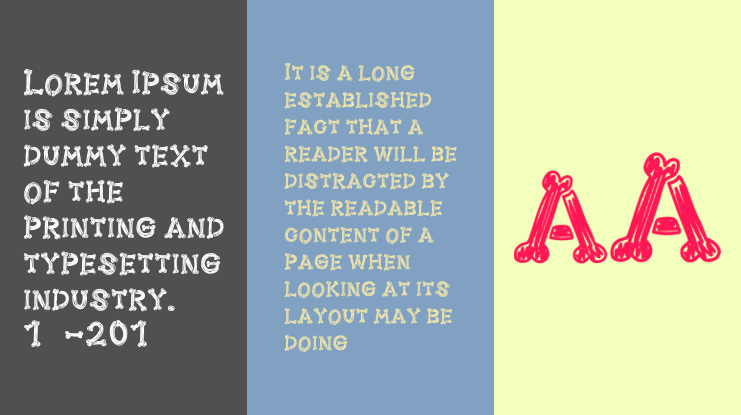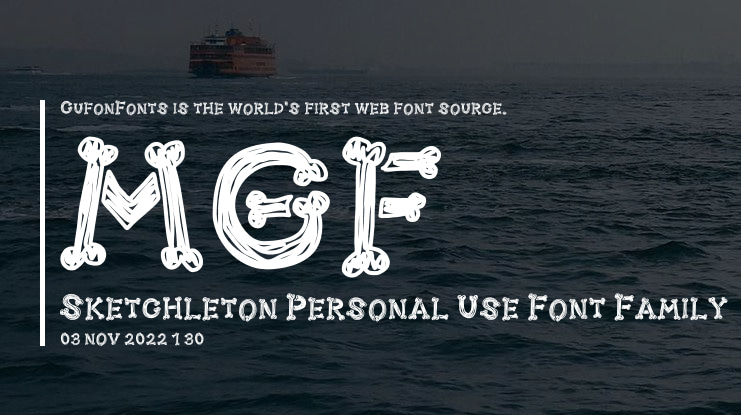
MGF Sketchleton Personal Use Font
Mighty Gummy Factory
SKETCHLETON is a playful bone sketch display font designed for designers, creators, and brands who want to stand out with a spooky yet fun aesthetic. With its hand-drawn bone-inspired letters, this font is perfect for Halloween designs, children’s books, quirky packaging, social media content, and event branding. Whether you’re working on logos, posters, or merchandise, SKETCHLETON delivers a bold, creepy, yet lovable vibe that instantly grabs attention.